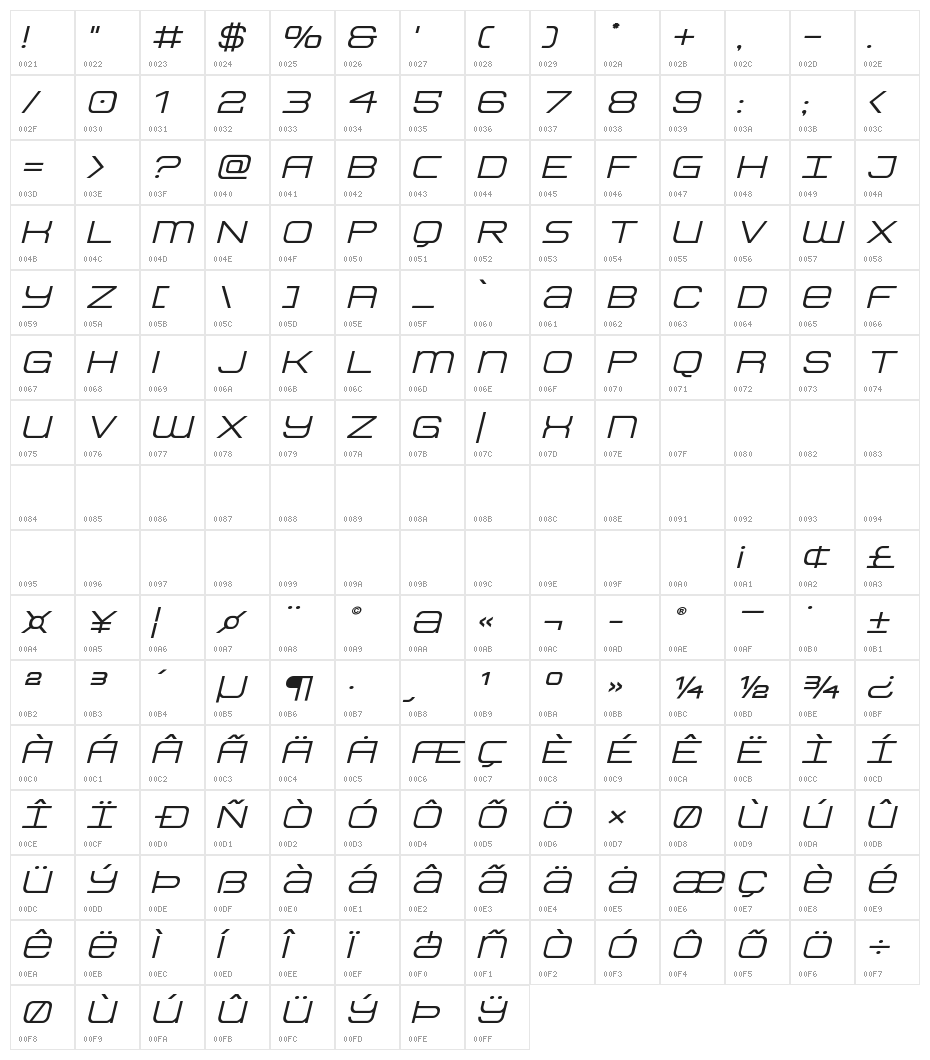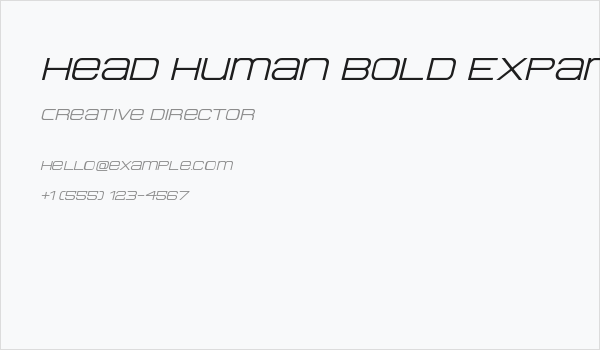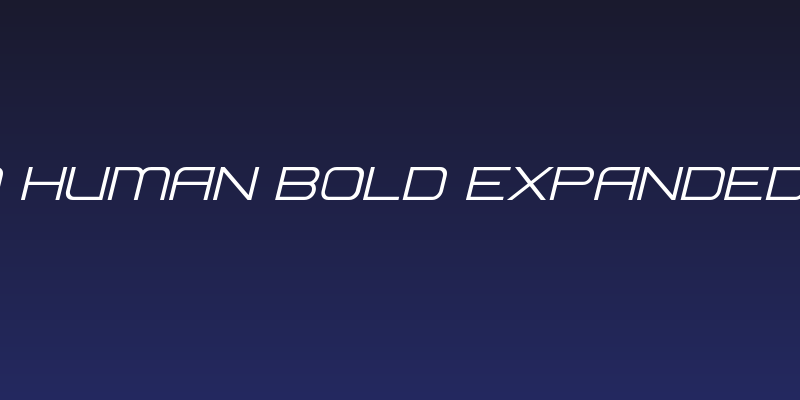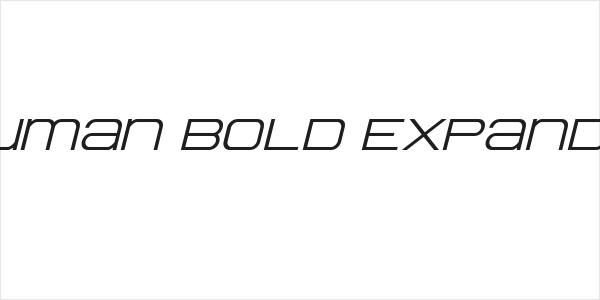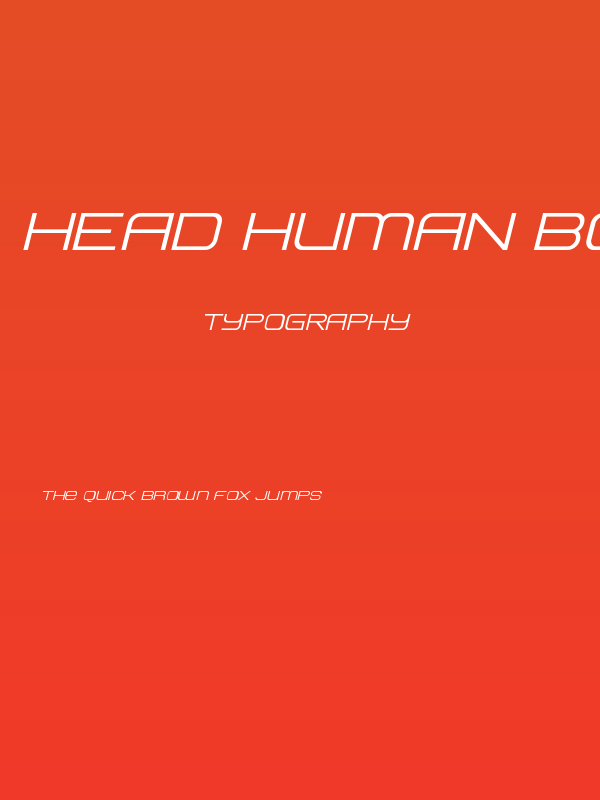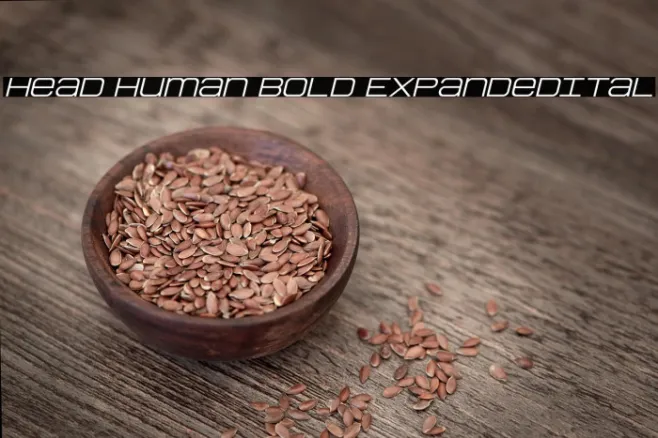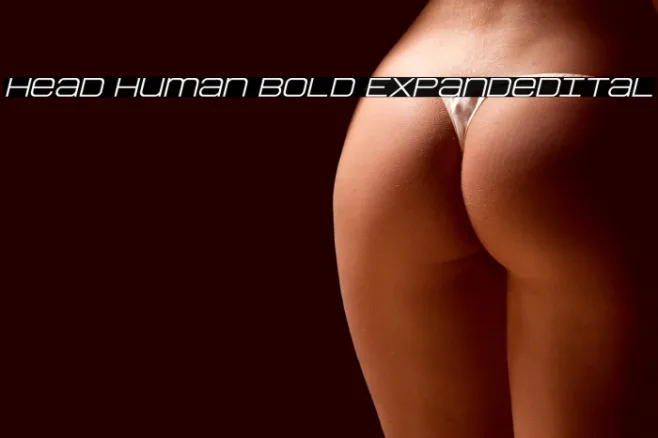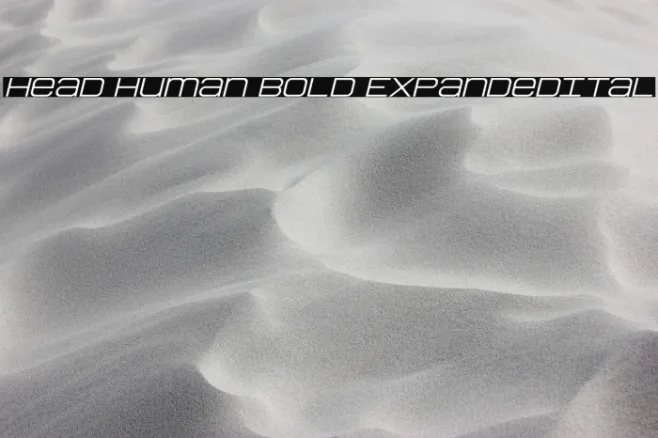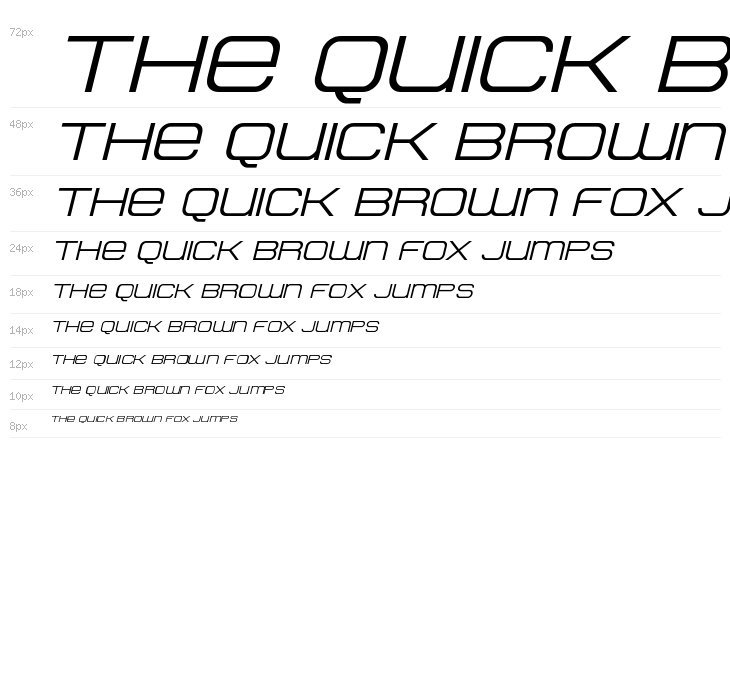
Head Human Bold ExpandedItal Font
Head Human Bold ExpandedItal Description
This font features a modern, sleek design with an expanded width that gives it a futuristic appearance. The characters are bold and italicized, adding a dynamic and energetic feel. The strokes are consistent in thickness, offering a medium contrast that enhances readability while maintaining a stylish edge. The overall design is clean and geometric, with a slight slant that suggests movement and speed. This font is versatile, suitable for various applications where a contemporary and bold statement is desired.
| Proposed Projects | Ideal for technology branding, sports team logos, automotive advertisements, and modern web design. |